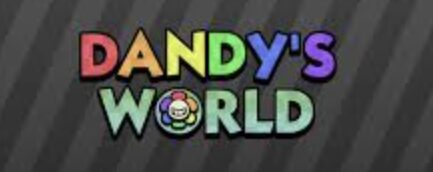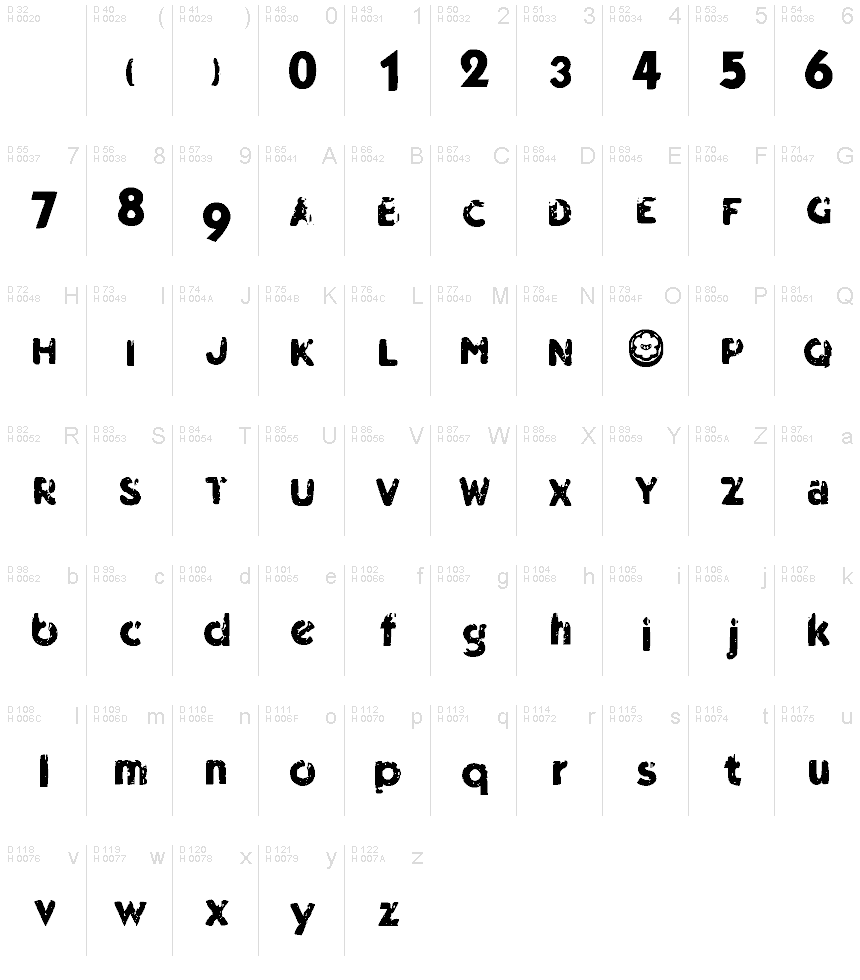
Ep Dandys World Regular
Ep Dandys World font is a casual display type. The distressed texture that distinguishes it will enhance your text-based designs as it gives them an edgy and experimental overall look. An eroded style along with its non-uniform appearance makes this font suitable for a wide range of project types and sizes.
Whether labels, stickers, game graphics, or book covers, this free display font does it all. Prepare stunning website headers with it or prepare outstanding t-shirt design ideas for enthusiastic shoppers. Other potential uses are posters, flyers, billboards, social media posts, mobile application interfaces and video game typography. It was also refrenced by a Roblox game called "Dandys world" where you have to survive the twisteds and complete machines to win